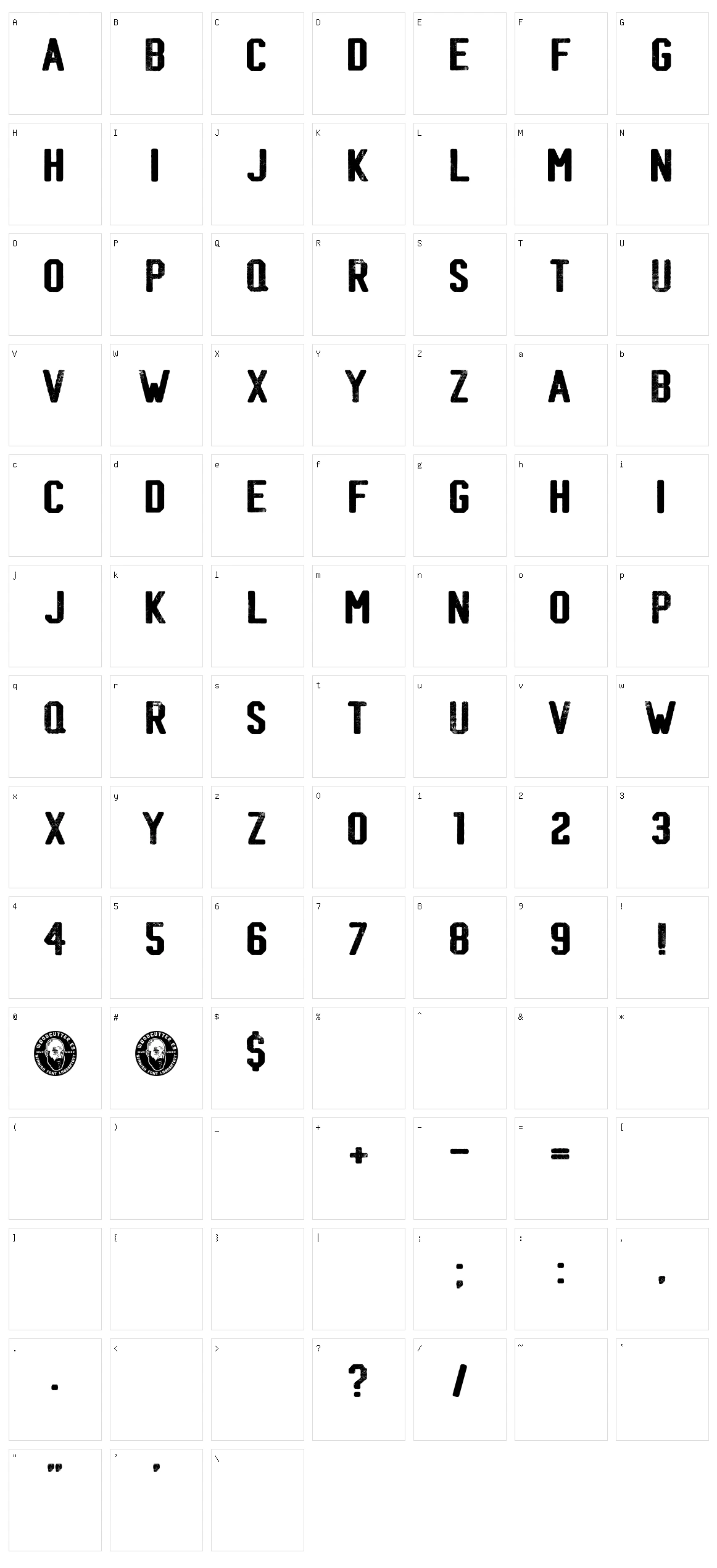
The free font Sports Bar is carefully designed by Woodcutter, showcasing a thoughtful balance of creativity and usability and falls under the Eroded font style. When you download the ZIP file, it contains only 197.19 KB of font files, making it lightweight and quick to download. Please review the license details below to understand permitted usage and distribution rights. If license information is not available, we recommend using this font for personal projects only or contacting the author directly for commercial usage permissions.